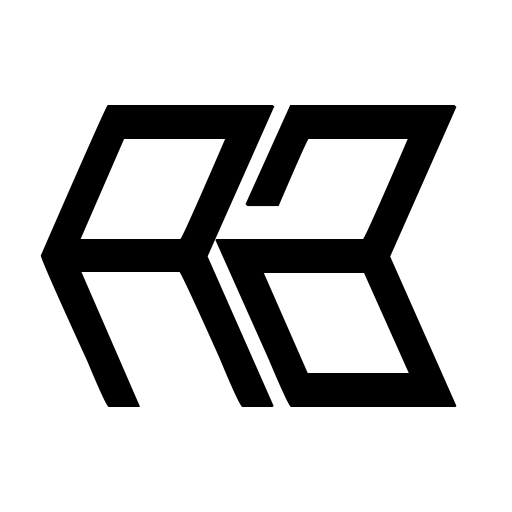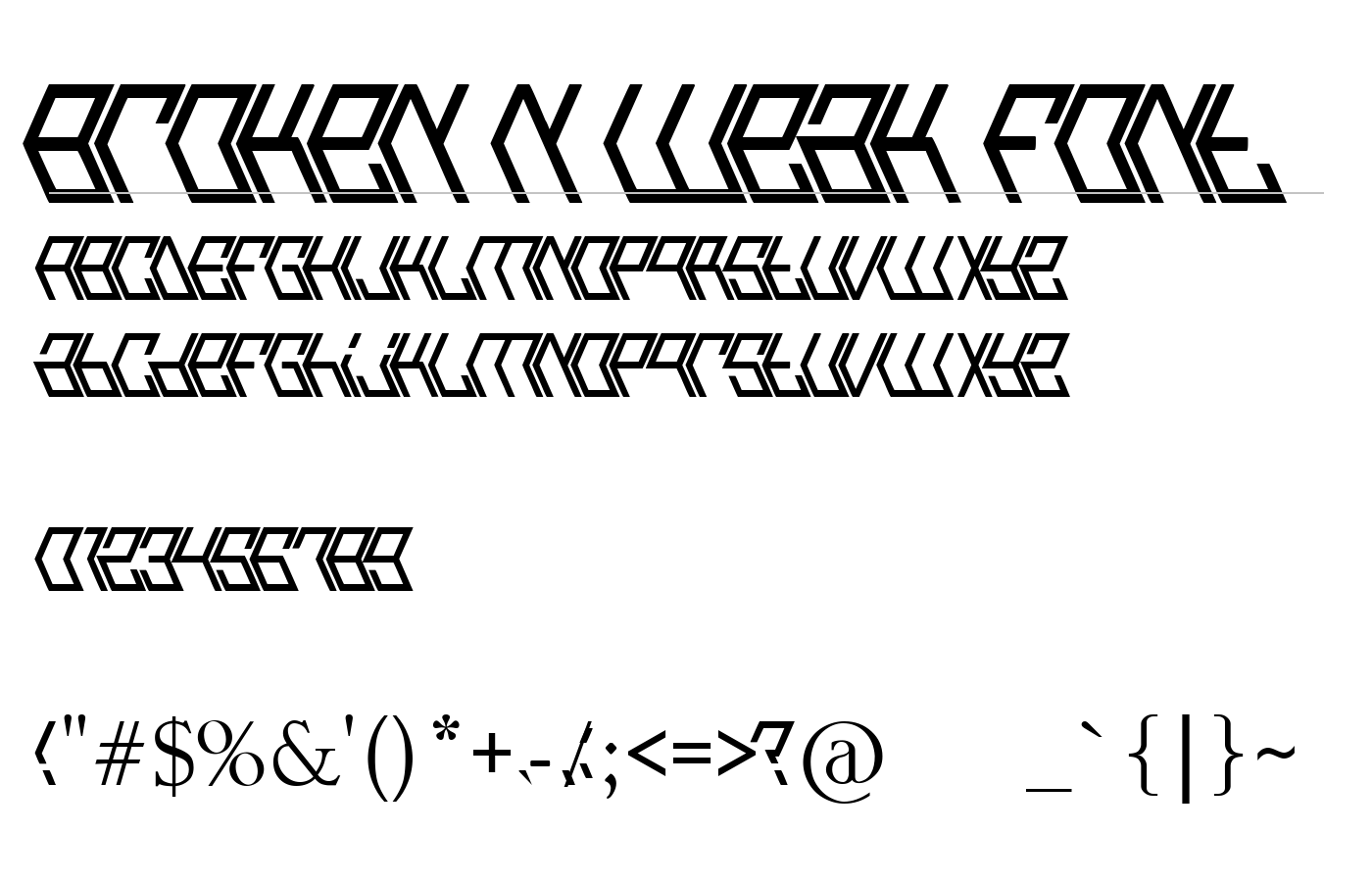
Broken n Weak is a bold, condensed sans serif font with sharp, angular strokes that give it a dynamic, futuristic vibe. Its high contrast between thick and thin lines, paired with geometric and fragmented letterforms, makes it ideal for edgy, modern designs that seek to stand out in headlines, logos, and posters. This font’s unique, techno-inspired style brings energy and a sense of innovation, perfect for fashion, technology, or entertainment branding.
Broken n Weak Font
About Broken n Weak Font